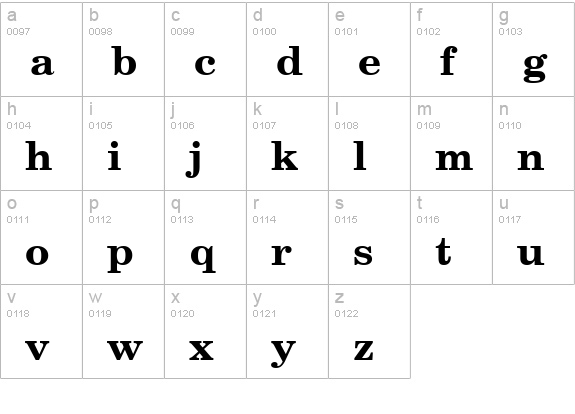
Century Schoolbook Bold SWA Font Details
Century Schoolbook Bold SWA is a strong, high-contrast variant in the Century typeface family \xE2\x80\x94 well suited to headlines, attention-grabbing titles, and strong calls-to-action.
Century Schoolbook Bold SWA font is a striking and versatile typeface that exudes confidence and authority. Its bold and distinctive letterforms make it perfect for headlines, titles, and any design where you want to make a strong statement. The sturdy serifs and generous spacing ensure excellent readability, making it ideal for both print and digital projects. What sets Century Schoolbook Bold SWA font apart is not just its bold appearance, but also the fact that it is available for free. You can easily download this font at FontsMarket.com and start using it in your designs right away. Whether you're working on a poster, website, or branding project, Century Schoolbook Bold SWA font will add a touch of sophistication and elegance to your work. Don't miss out on this fantastic opportunity to enhance your designs with this beautiful and impactful typeface.